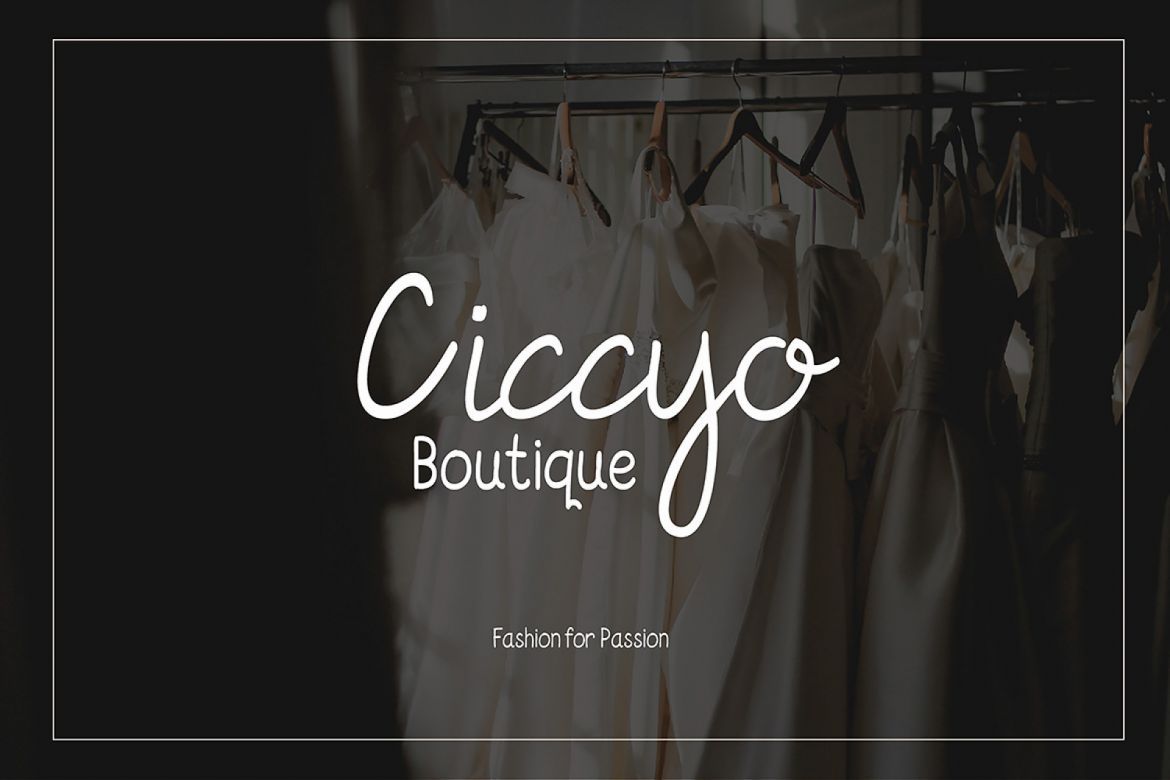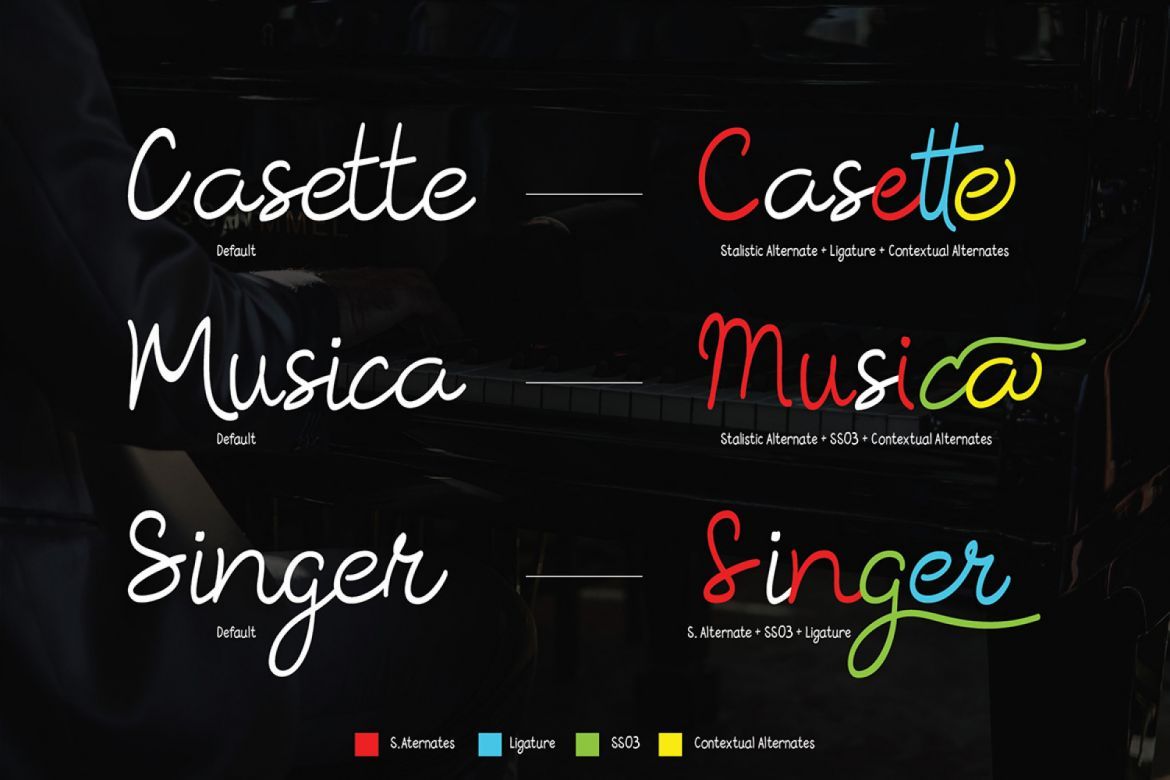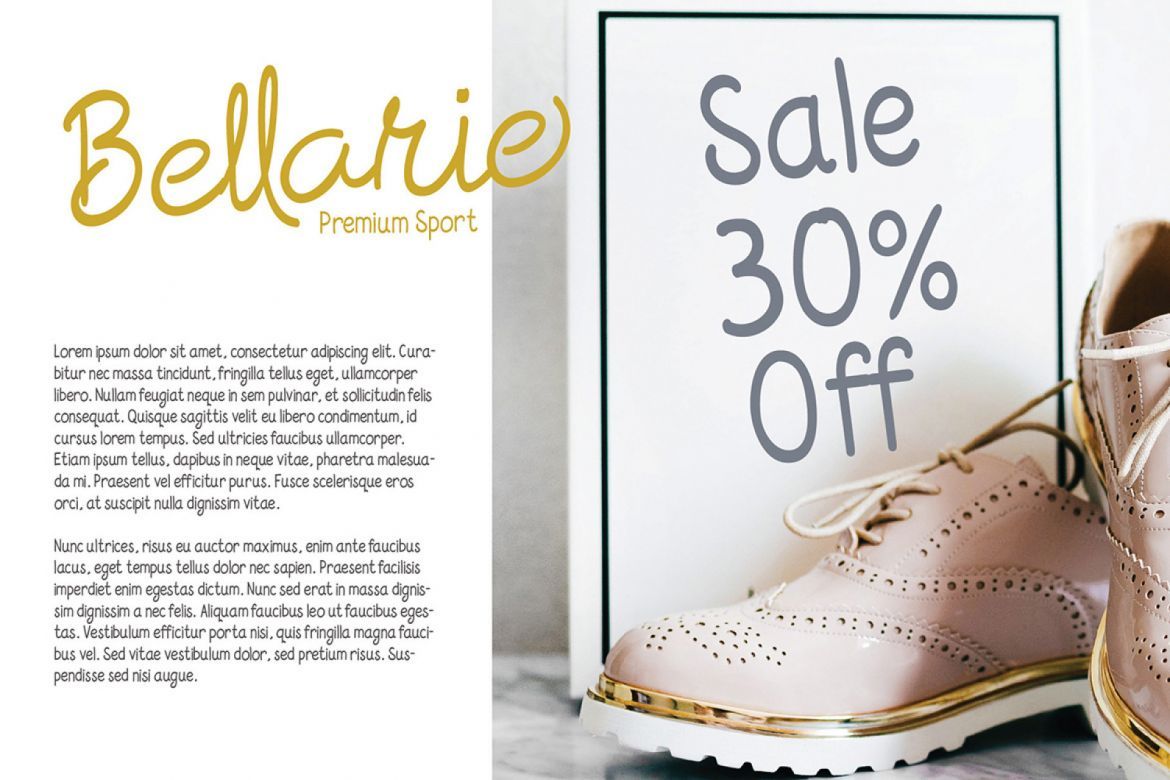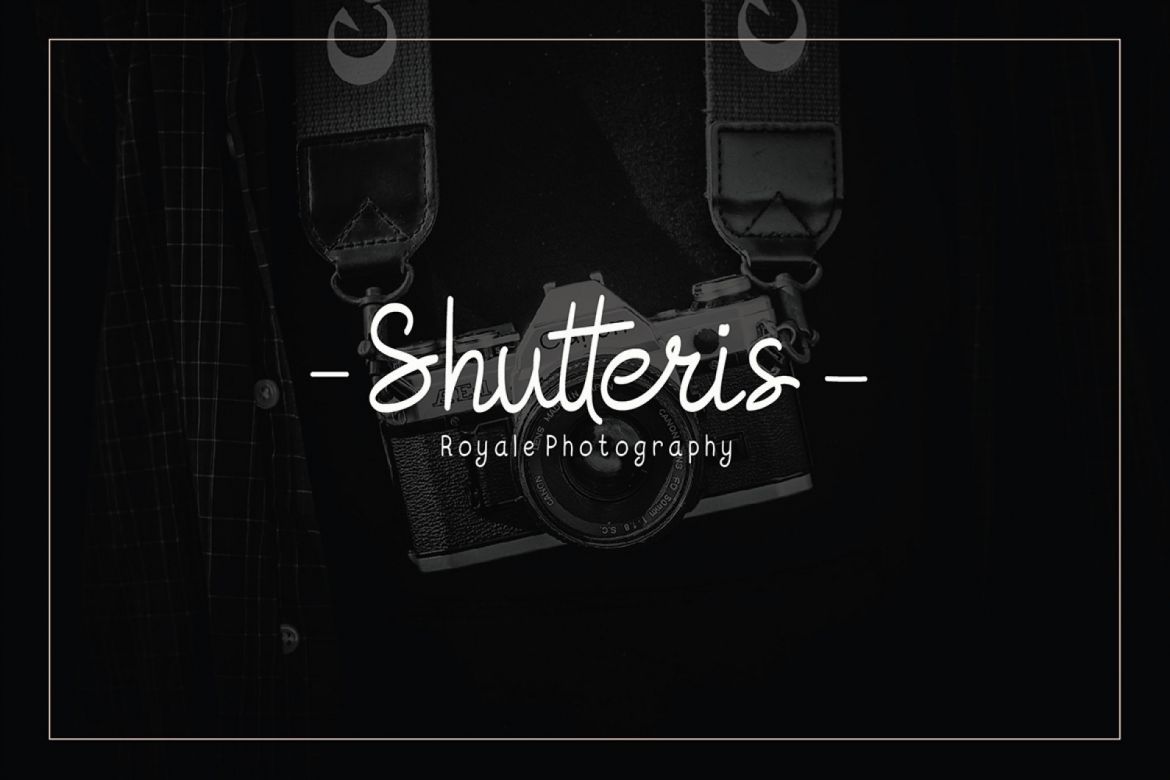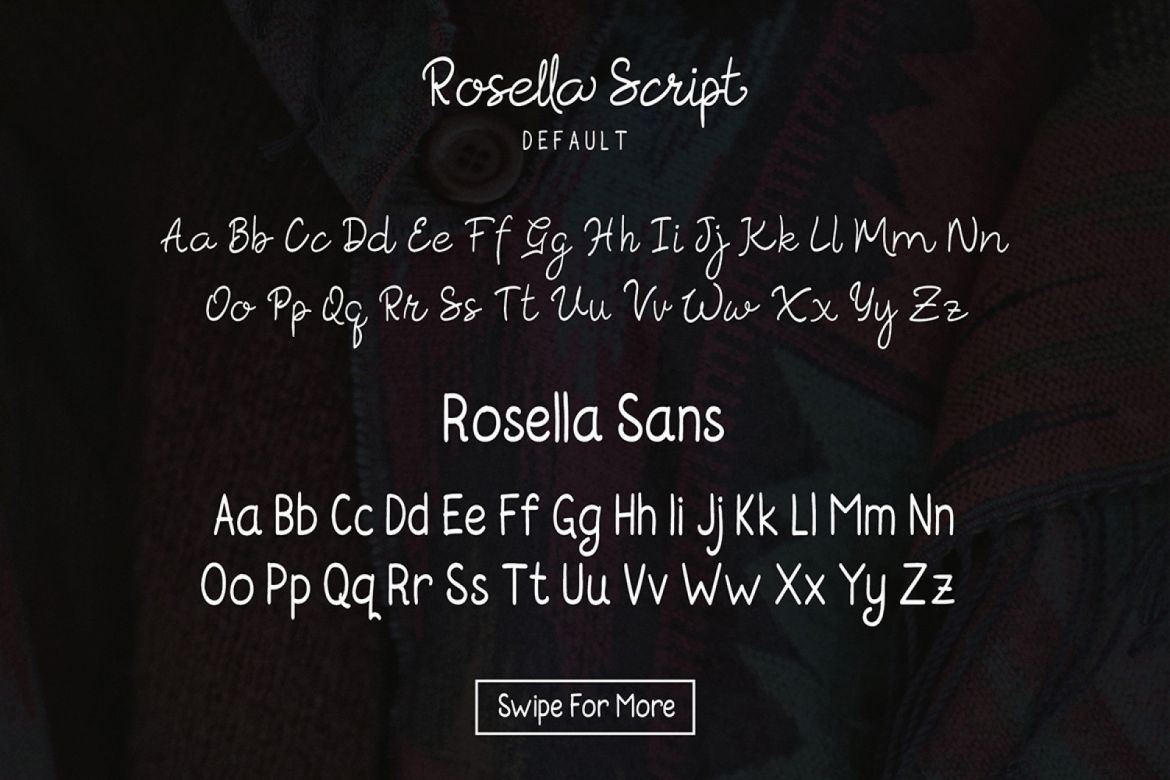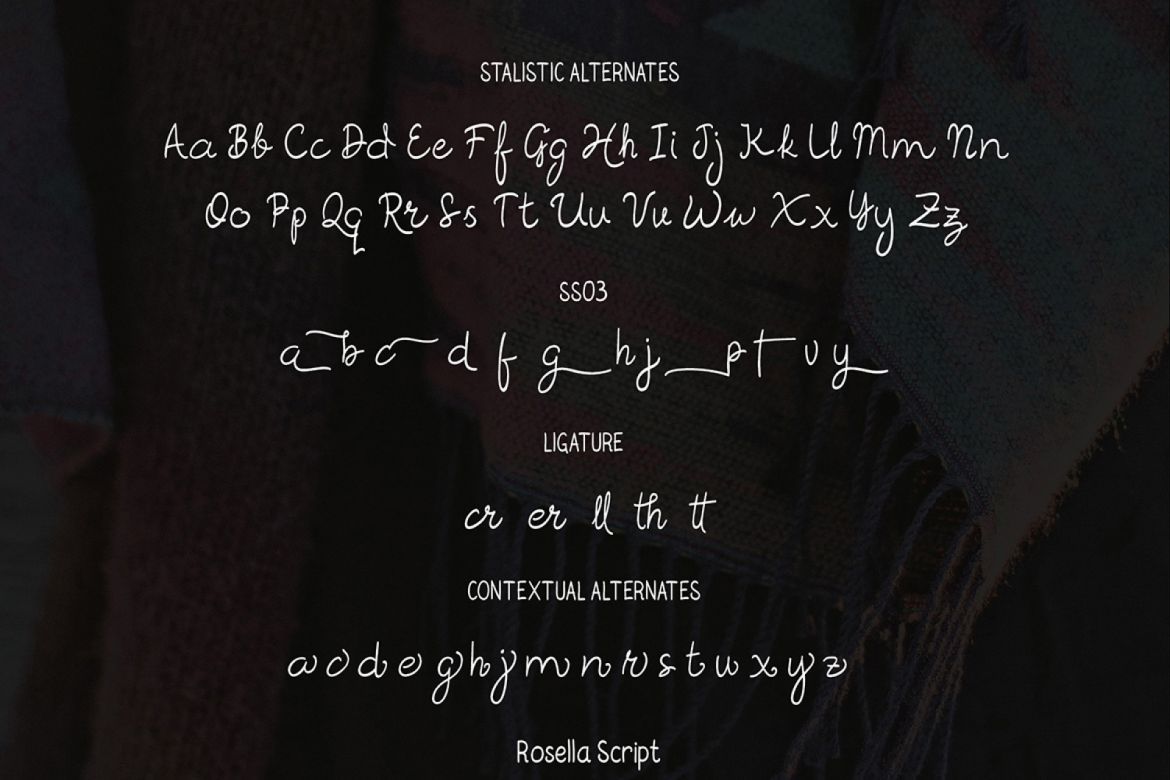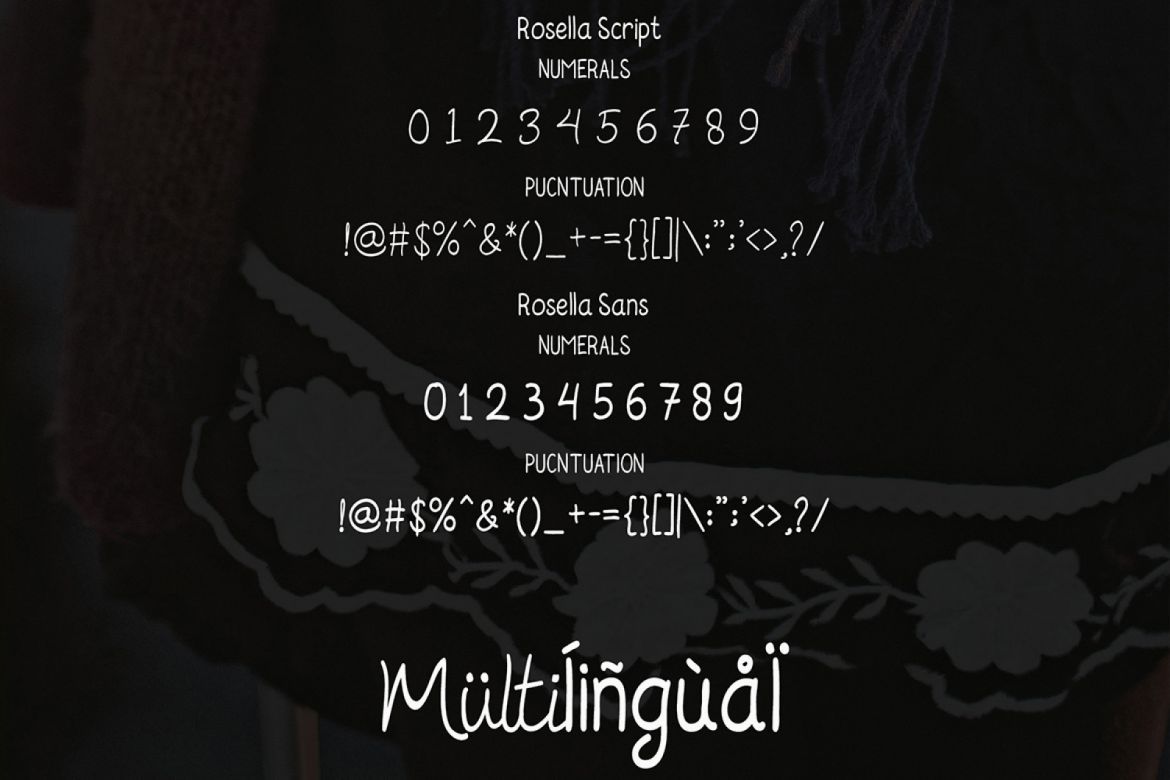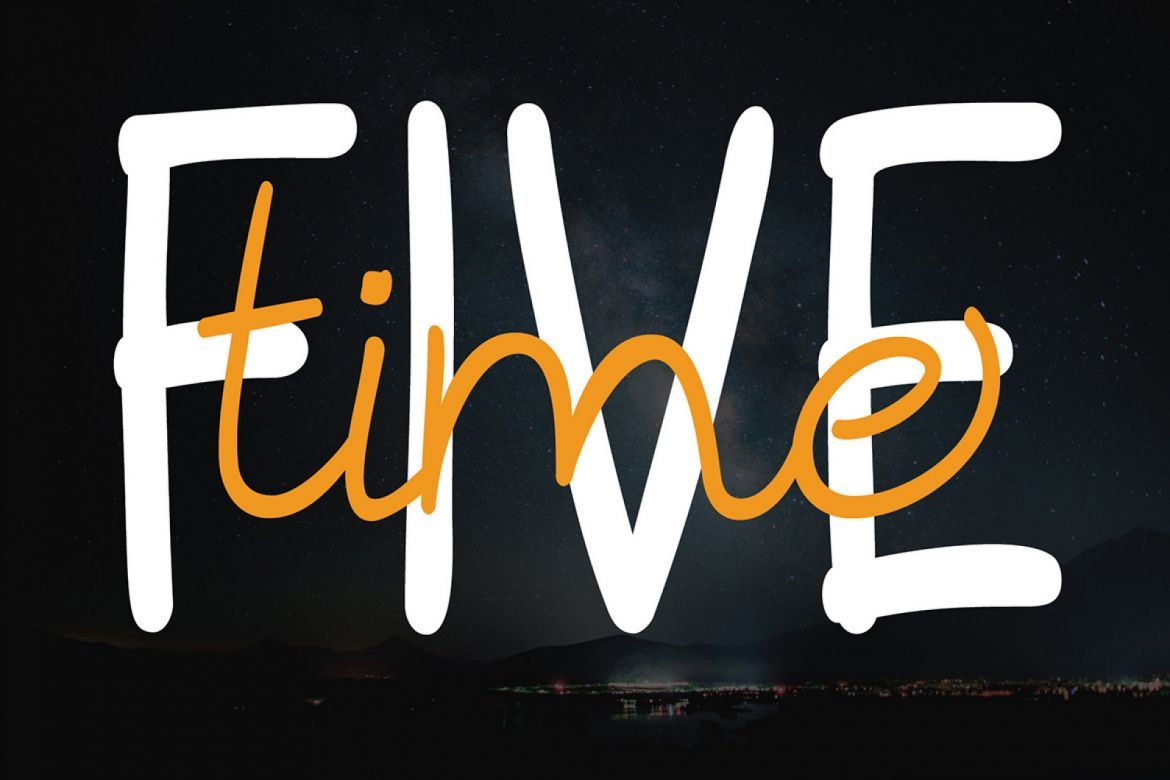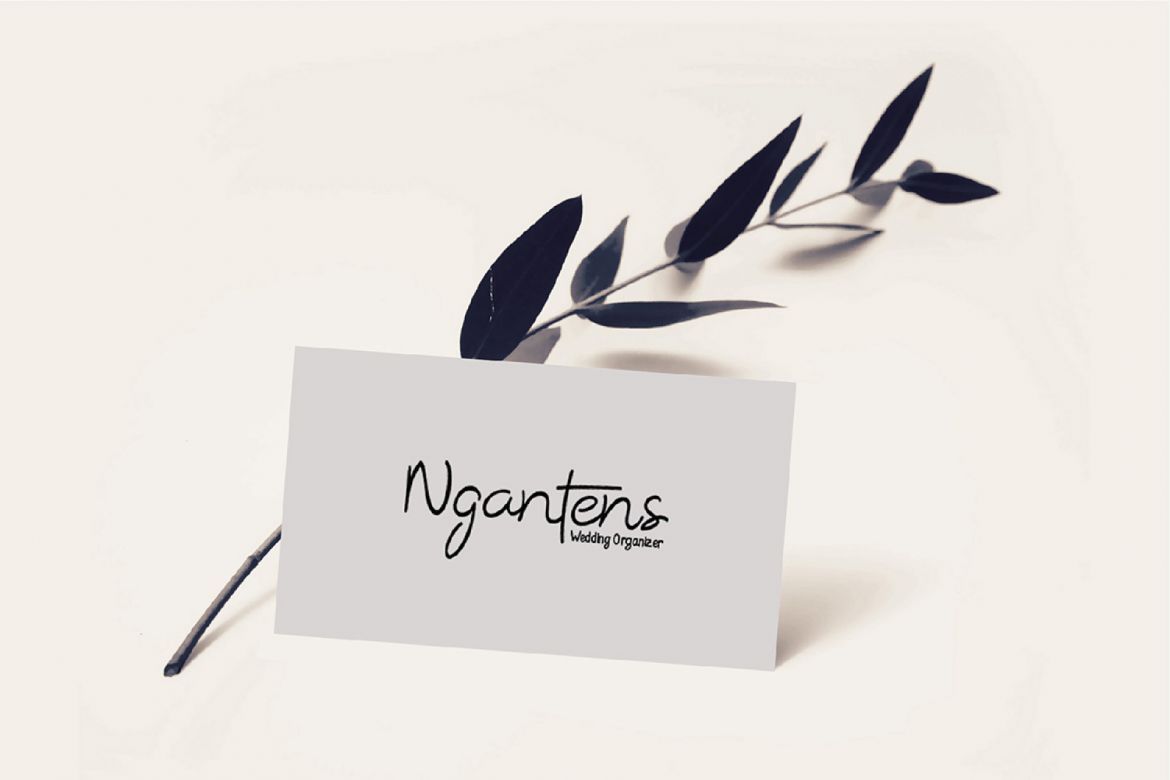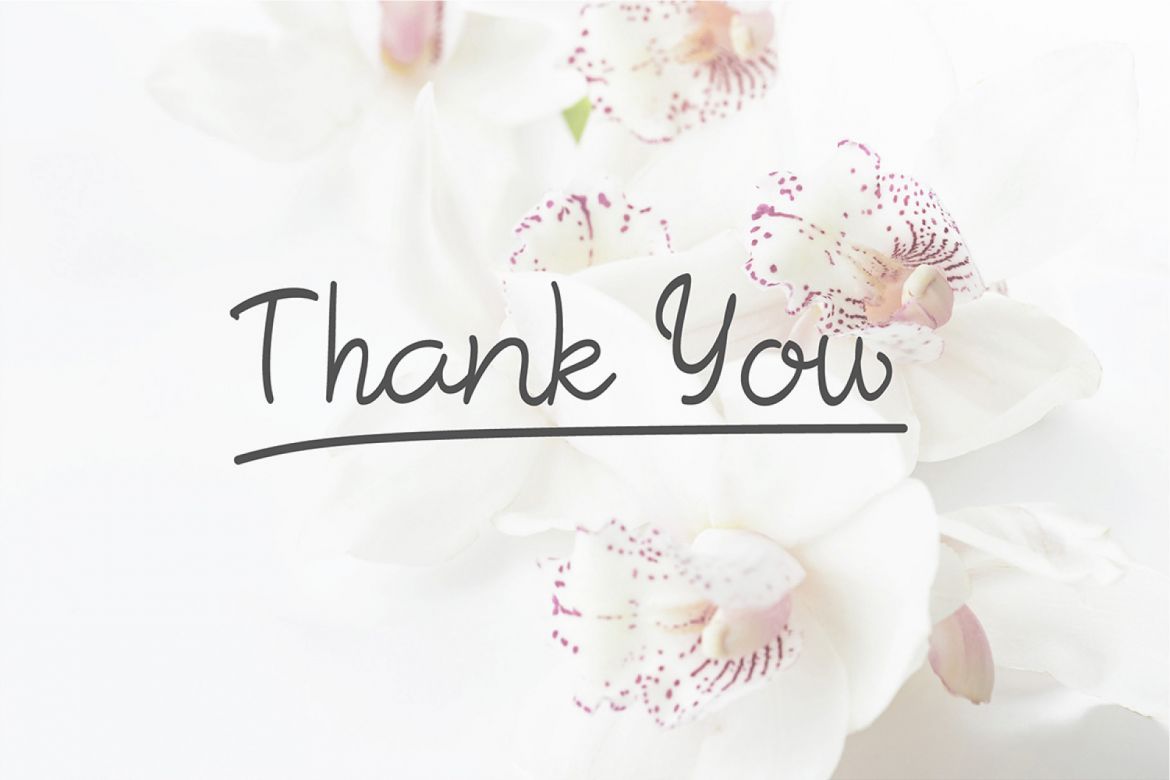
Morella Script & Sans (Font Duo)
Morella Script & Sans font with original handwriting style, looks very natural and beautiful. It is suitable for boutique brand, photography, magazine, quote, business card, logo, poster and many more. There are two types of fonts: script and sans, script is equipped with opentype features such as stalistic alernates, ligature, contextual alternates and multilingual support.
Opentype Feature :
• Stalistic Alternates.
• Stalistic Set 03.
• Ligature.
• Contextual Alternates.
• Multilingual & Punctuation.
• PUA Encoded